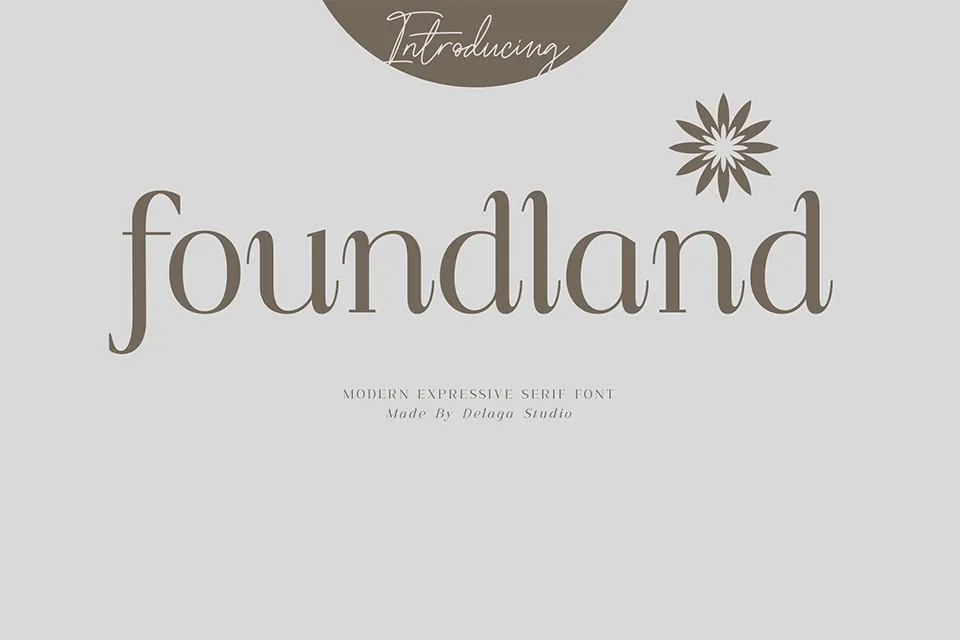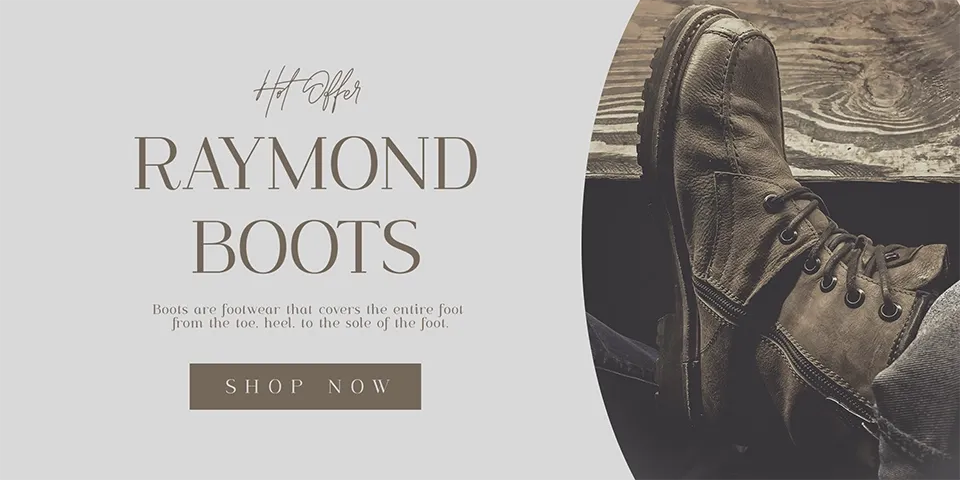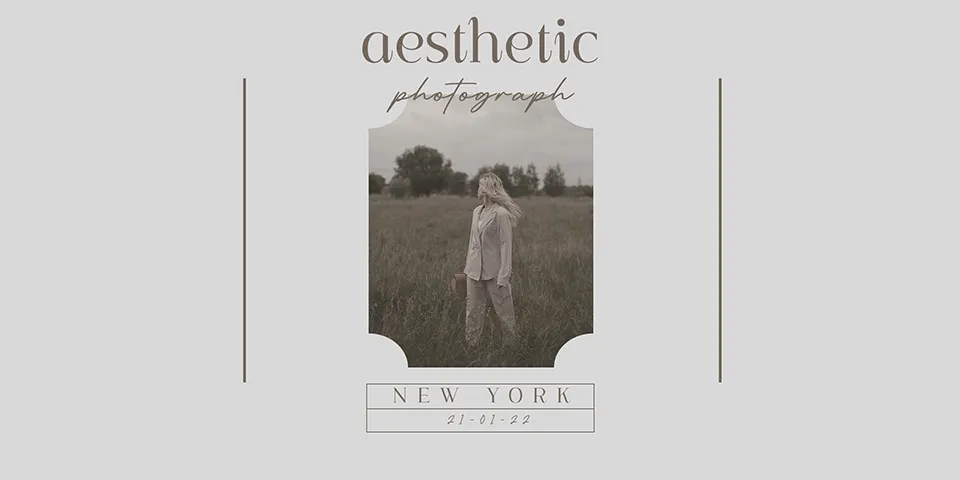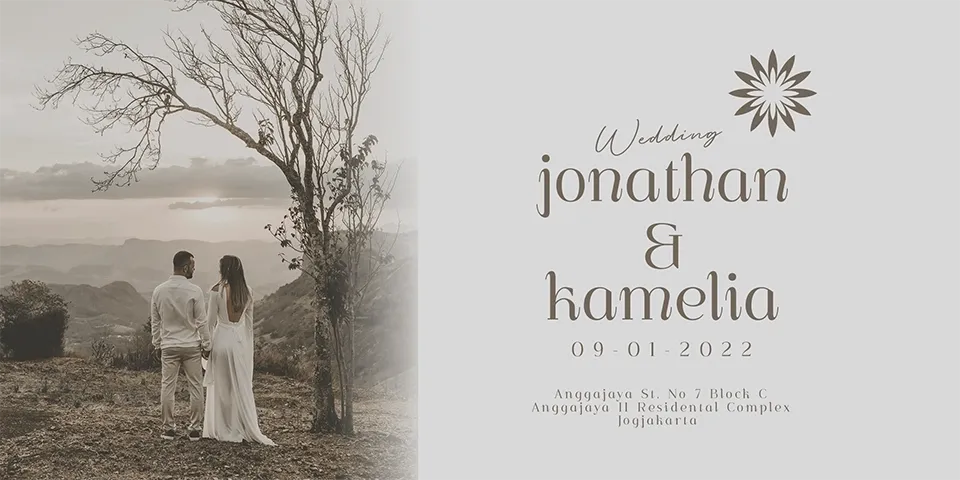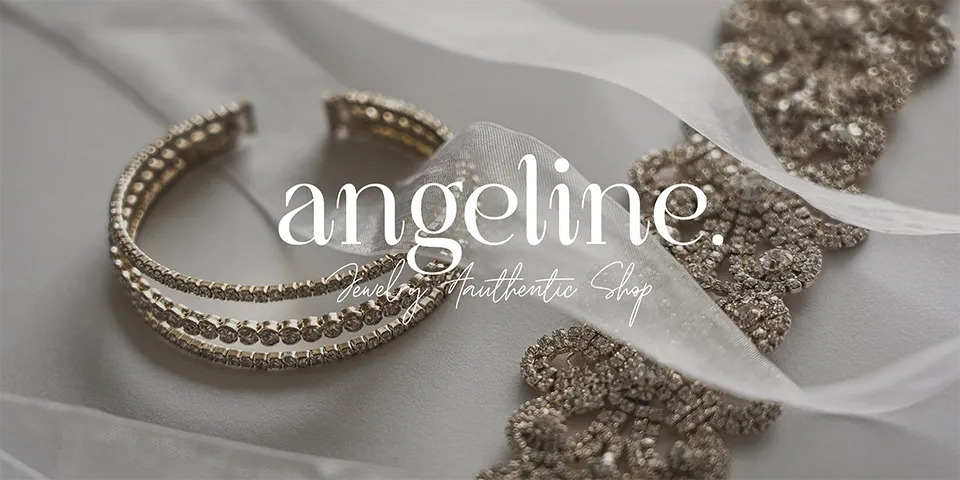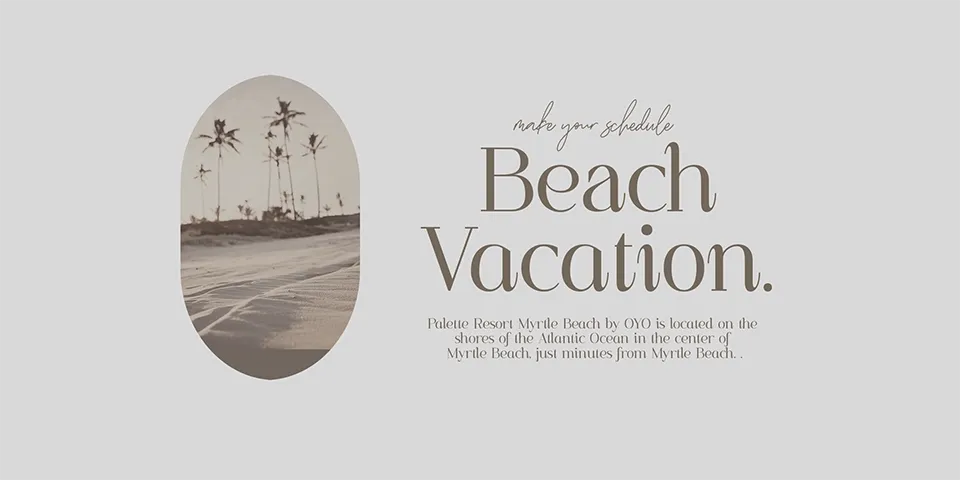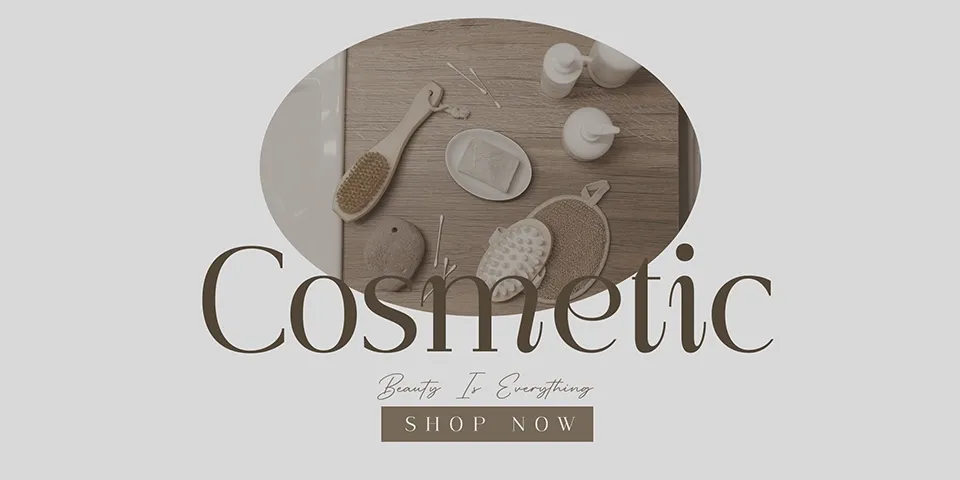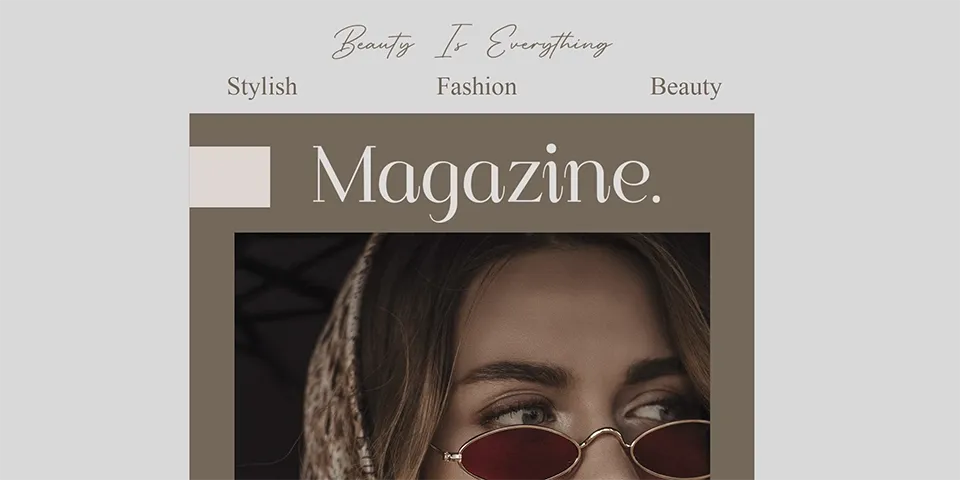
Foundland Font
Foundland Font is an elegant serif typeface designed by Mans Greback that combines classic sophistication with modern sensibility. The font family includes regular and italic styles, featuring clean lines, balanced weight, and subtle curves that create an inviting atmosphere while maintaining professionalism. Its finely crafted letters showcase graceful serifs and open counters, making it highly legible and versatile for various applications. The font supports extensive Latin-based languages and includes advanced OpenType functionality with stylistic alternates, ligatures, and swash options (activated using underscore). Perfect for headlines, logos, book covers, wedding invitations, and any design project requiring a touch of refined elegance.